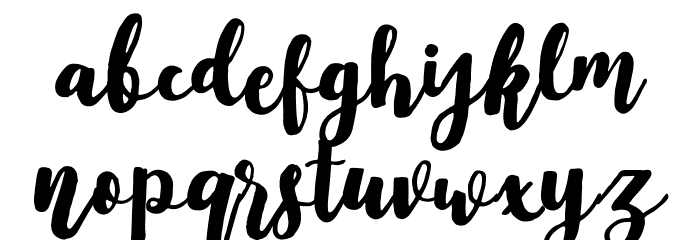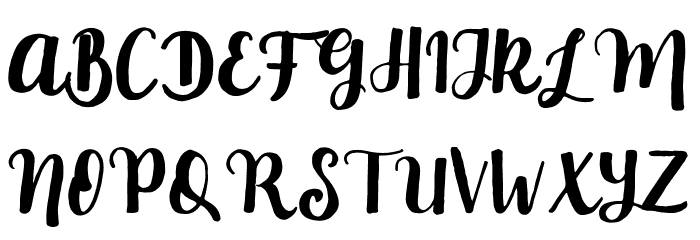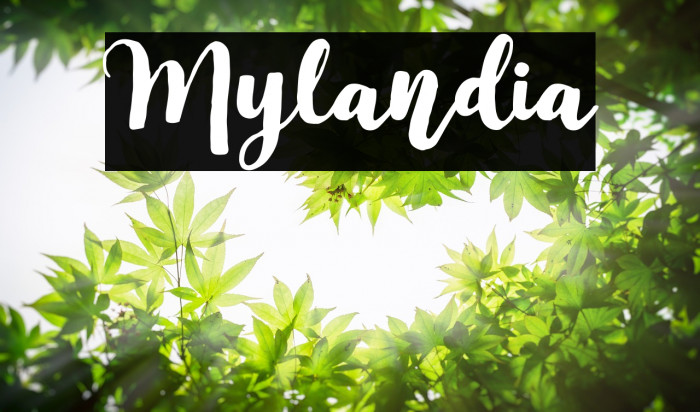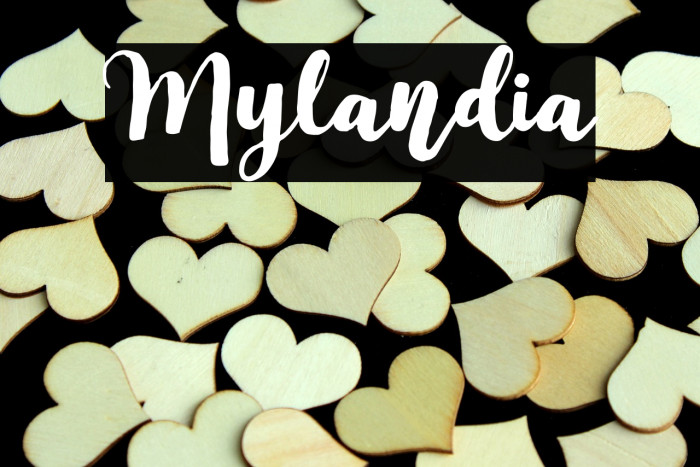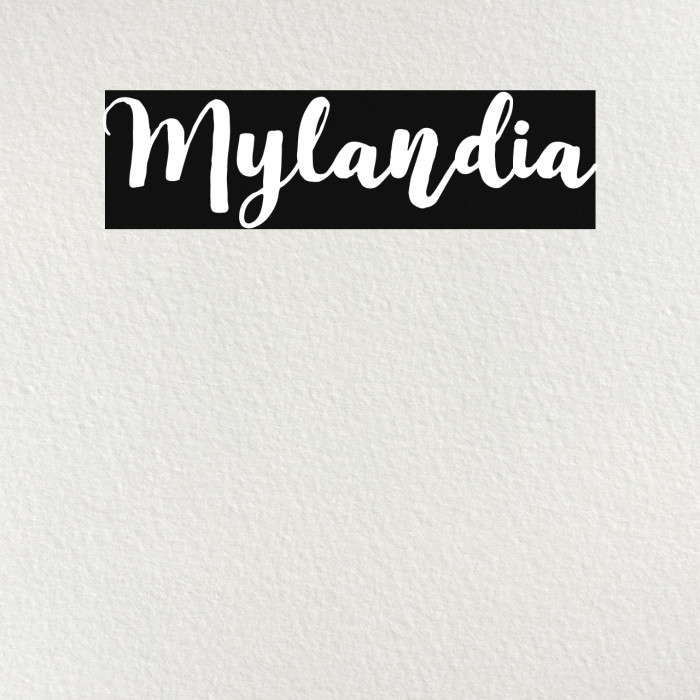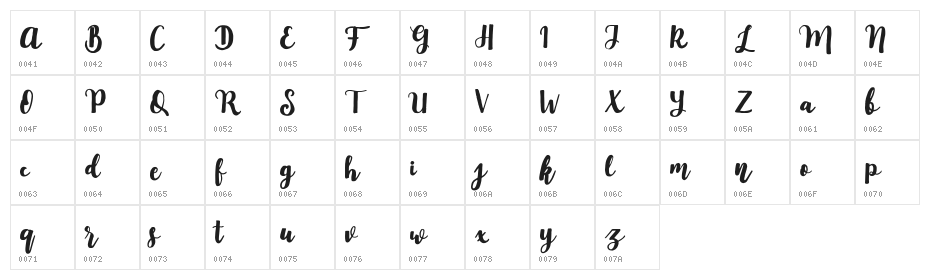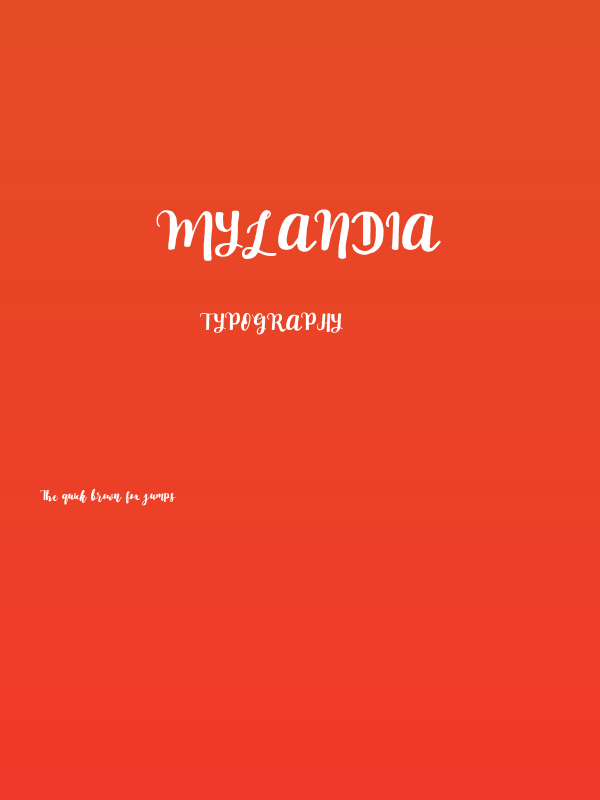
Mylandia Font
This font features a bold and expressive script style with a handwritten feel. The letters are characterized by their fluid, cursive strokes and varying thickness, creating a dynamic and lively appearance. The uppercase letters maintain a consistent height, while the lowercase letters exhibit a playful bounce, adding to the font's charm. The overall design is both elegant and casual, making it suitable for a variety of creative projects. The font includes a full set of uppercase and lowercase letters, numbers, and a selection of special characters, ensuring versatility in use.
A bold, expressive script font with a handwritten, cursive style.
- Proposed Projects: Ideal for wedding invitations, greeting cards, branding, and social media graphics.
- Use Case: Logos, Headlines, Invitations